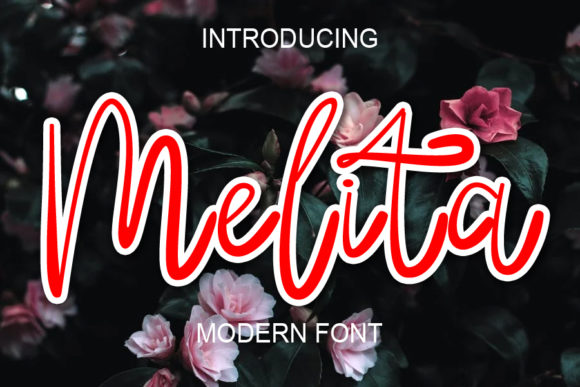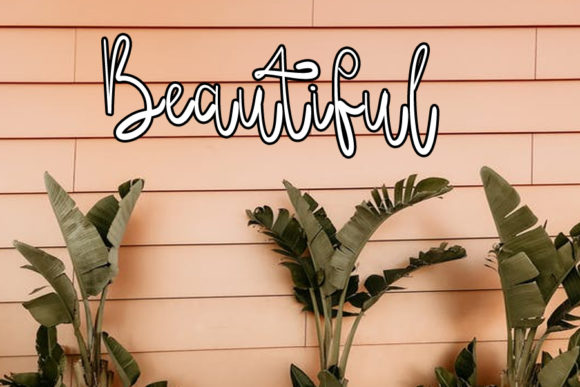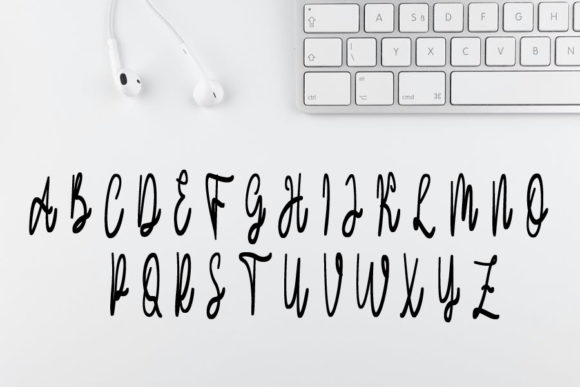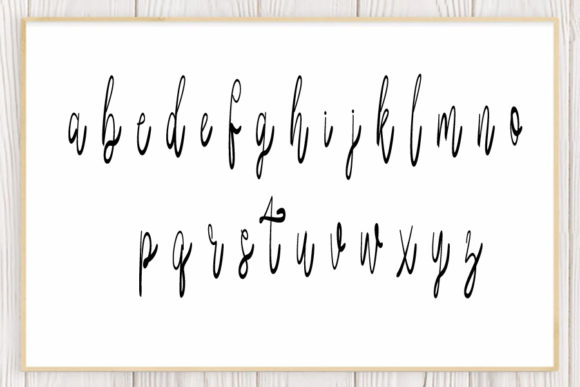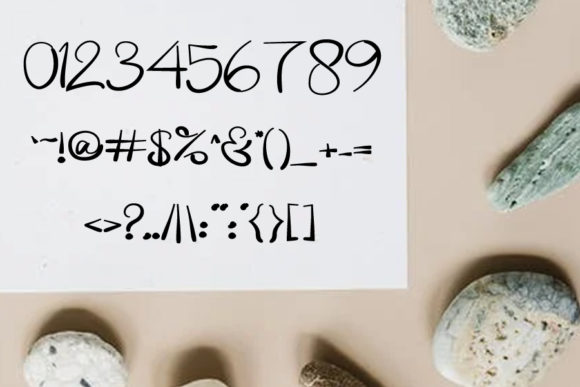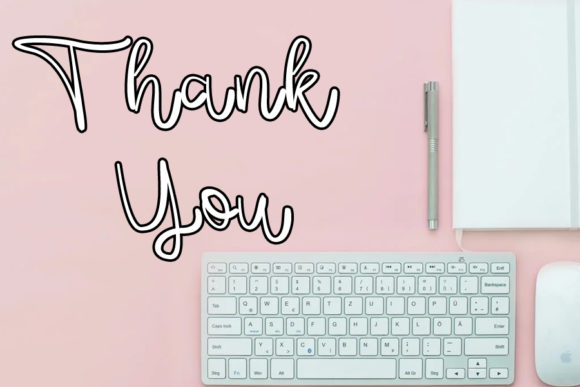
Melita Font
About Melita Font
Melita is a smooth, cute and trendy handwritten font. This font has a lovely touch of character, perfect for a wide variety of designs. Add it to your most creative ideas and make stunning designs!